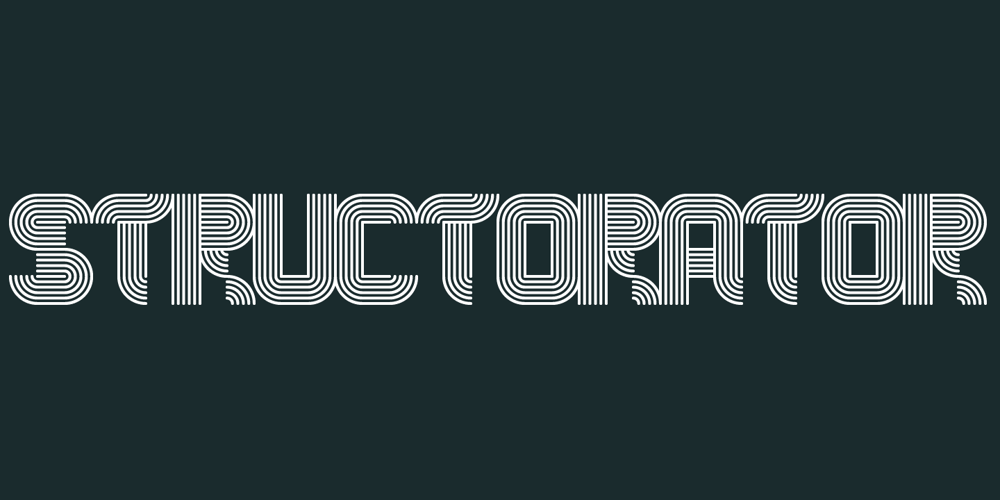
Structorator
Structorator font
Structorator Font Family was designed by Christian Gwiozda and published by Furiosum. Structorator contains 3 styles and family package options. Structorator is a grid-based, experimental display font. This typeface emerged from experiments with generative type design. It evolved from a piece of code into a fully usable opentype font. The two main features are its rigid but playful design and a multitude of alternate glyphs. These features make it possible to create interesting lettering when using the default spacing. The glyphs are constructed from a limited set of patterns which are arranged within a predefined grid. The line thickness corresponds to the different cuts. Due to the rather complex shape this font will look best in larger sizes and resolutions. Its best suited for headline, display or illustrative work. – 3 weights: light, medium and heavy – 5 character sets – 3 number sets – Basic punctuation – Seperate diacrits – Ornamental glyphs – Access via stylistic sets *OT feature – Random access from the whole range of chars *OT feature – Total of 1062 Glyps